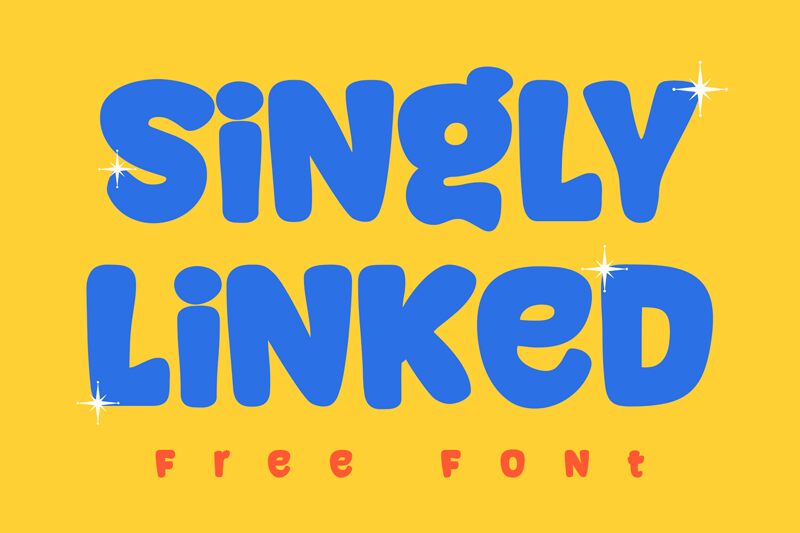
Singly Linked Regular
Singly Linked, designed by Niskala Huruf, stands out as a playful and impactful display font with its extra-bold weight and cartoon style. Its rounded forms and exaggerated lines convey a sense of whimsy and fun, making it an ideal choice for projects that aim to grab attention with a touch of lightheartedness.
Whether you're designing vibrant posters, eye-catching logos, or engaging social media graphics, Singly Linked brings personality and readability to any creative venture. Its bold presence complements its cheerful aesthetic, ensuring that your message not only pops but also resonates with an audience seeking visual delight in typography.